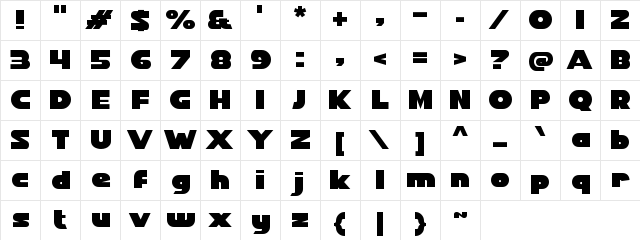
f Fun Park 678
Designer: Wahyu Eka Prasetya
Design Context for f Fun Park
f Fun Park has an approachable, lighthearted character - its loose, expressive forms are well-suited to children's content, casual branding, and fun-first design.
Font Pairing: Pairs well with a rounded or humanist sans for body copy, maintaining the friendly tone without relying on f Fun Park to carry extended reading.
Pro Tip: Use f Fun Park at larger display sizes where its expressive character can land. Pair with a clean, simple sans for body copy to maintain readability.